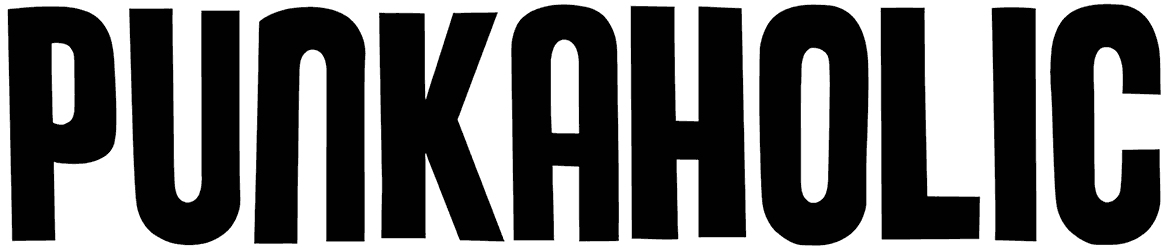
Punkaholic Font
Meet Punkaholic, a notable font that is ideal for a variety of themes. This sans serif font doesn’t have lowercase and almost all of the punctuation, but instead of that, it supports two sets of capitals and even has two versions, regular and 3D outline. Pick Punkaholic up for your next designs, such as wordmarks, covers, illustrations, or others, and make them modern and dominant.
Punkaholic started out as a loopy all caps display font with a semi condensed feel. Before completion some of the letters such as A and W were given a more traditional look and were penciled in for alternates. In the end, however, they were added as uppercase characters instead. For this reason most words in lowercase vary in appearance from their uppercase counterparts. This dichotomy between straight lined capitals and rounded ones makes for some interesting contrasts. Punkaholic works best in less formal settings such as cafe menus, t-shirts, or children’s publicatons. It comes in 3 styles and contains Latin, extended Latin, punctuation, and kerning. The demo version contains Basic Latin only.